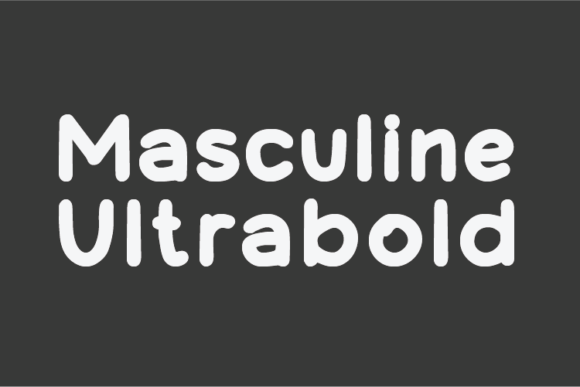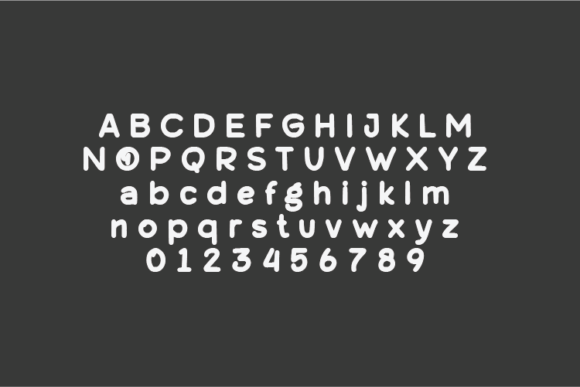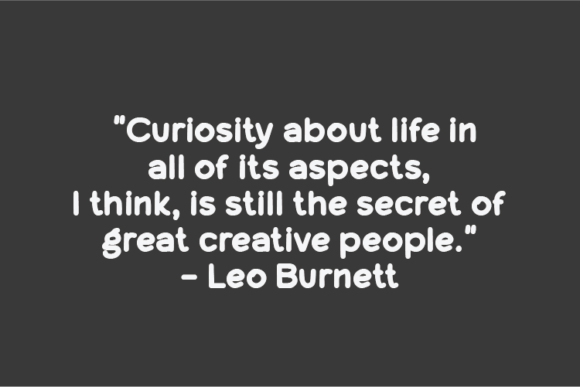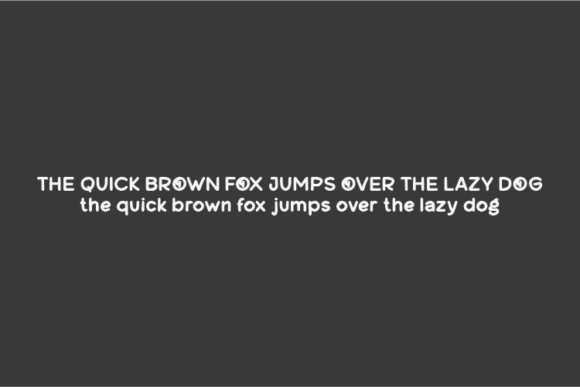
Masculine Ultrabold Font
About Masculine Ultrabold Font
Masculine Ultrabold sounds like a compelling and distinctive natural handwritten font, emphasizing the preservation of each character’s original indentation without alterations. This commitment to maintaining the natural characteristics of the handwriting likely contributes to its unique and authentic appeal.
The fact that Masculine Ultrabold is described as perfect for quotes, notes, tees, and product designs suggests its versatility in conveying a bold and impactful aesthetic. Handwritten fonts, especially when they carry a masculine or bold quality, often add a strong and expressive touch to designs.
Consider experimenting with Masculine Ultrabold across different design projects to fully explore its unique qualities. Whether it’s making a statement with impactful quotes, adding a bold touch to notes, or enhancing the design of tees and products, Masculine Ultrabold seems well-suited for projects that demand a powerful and distinctive typographic presence.